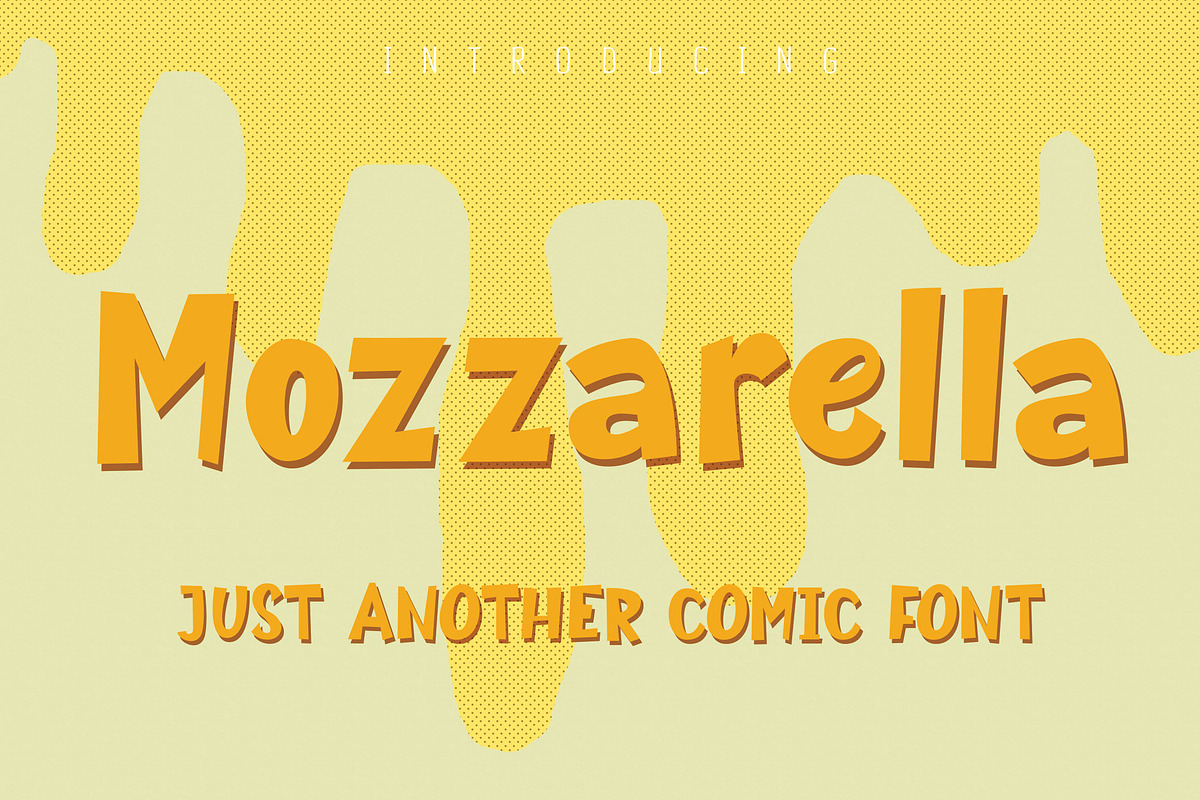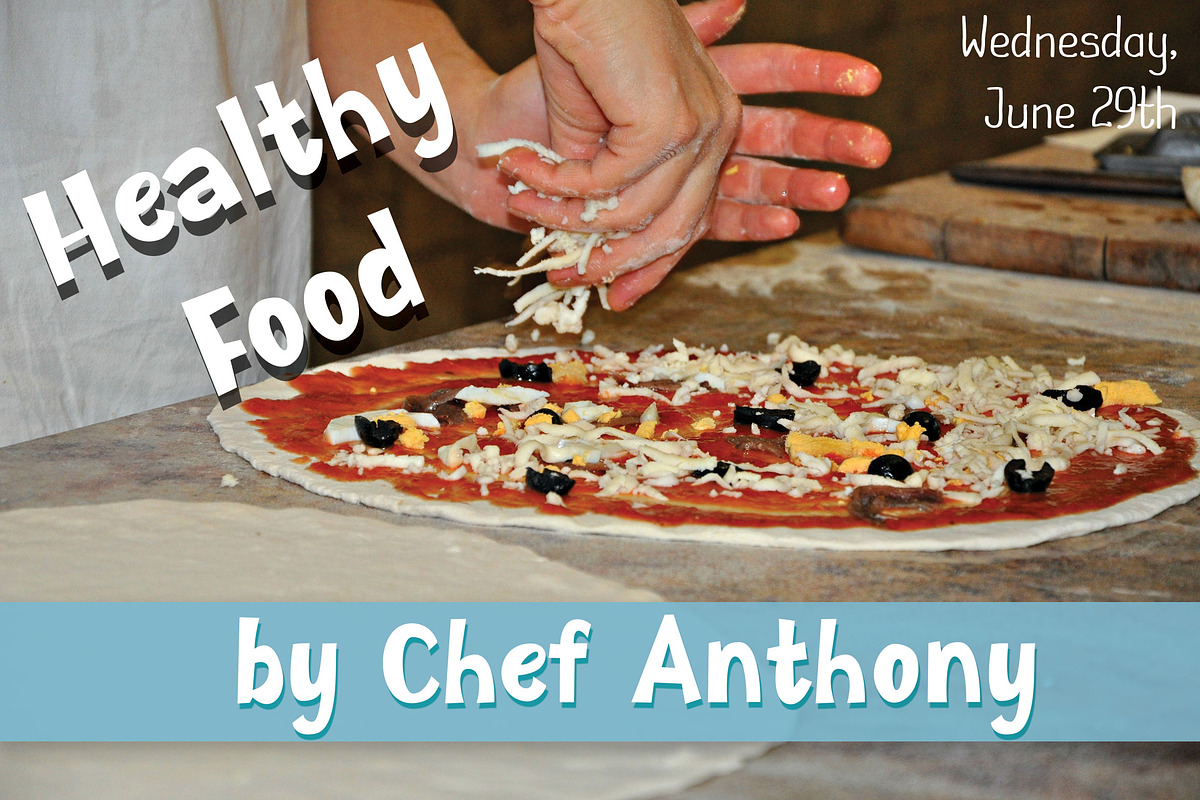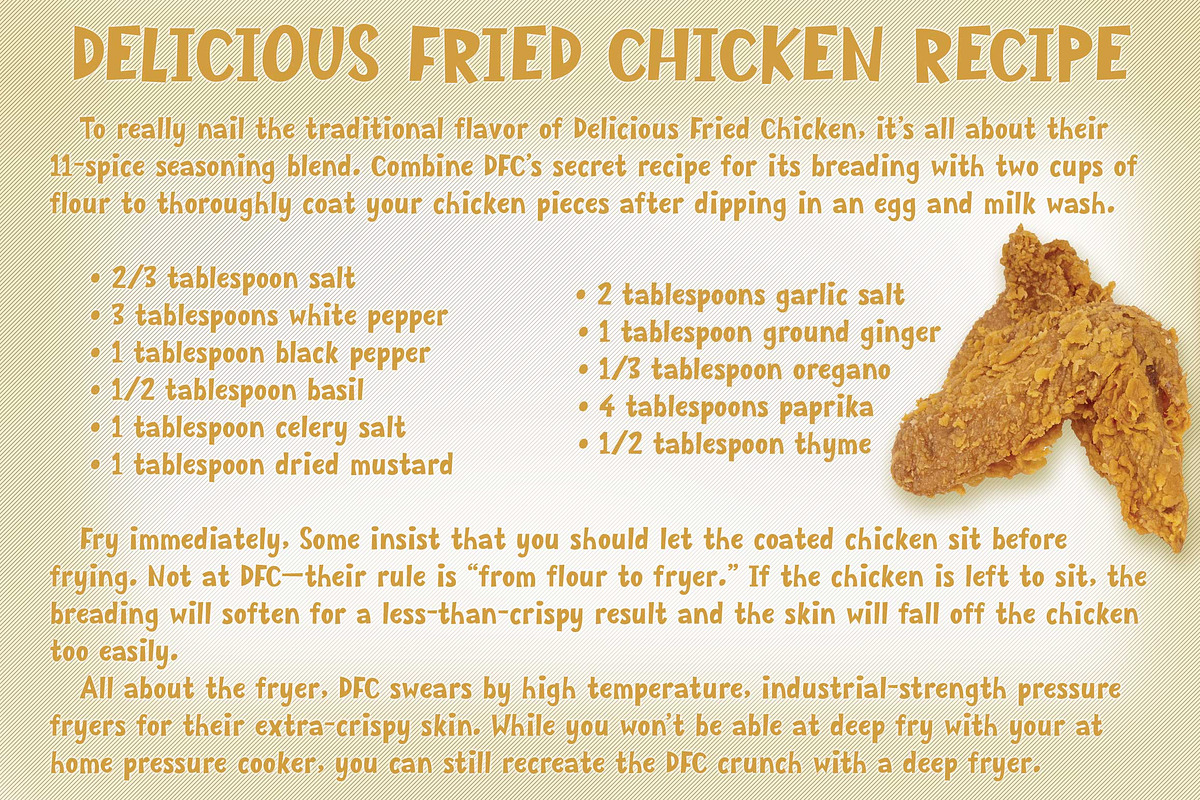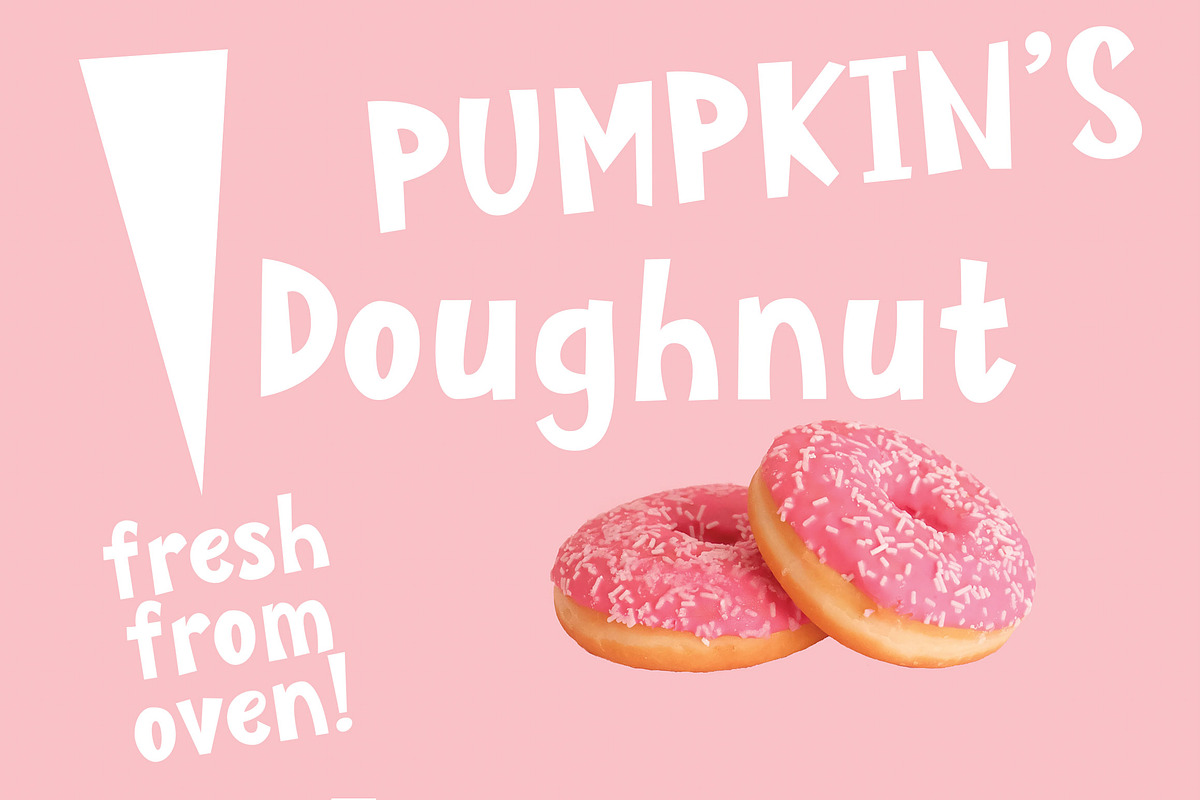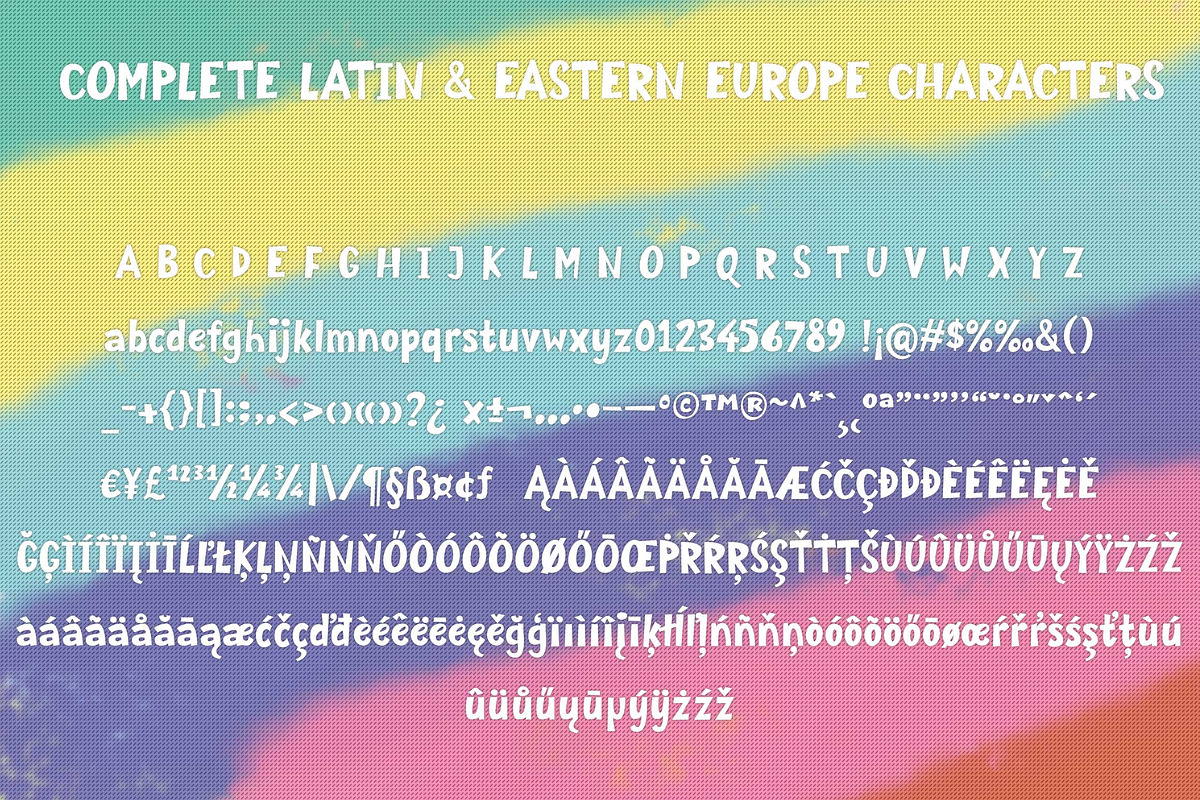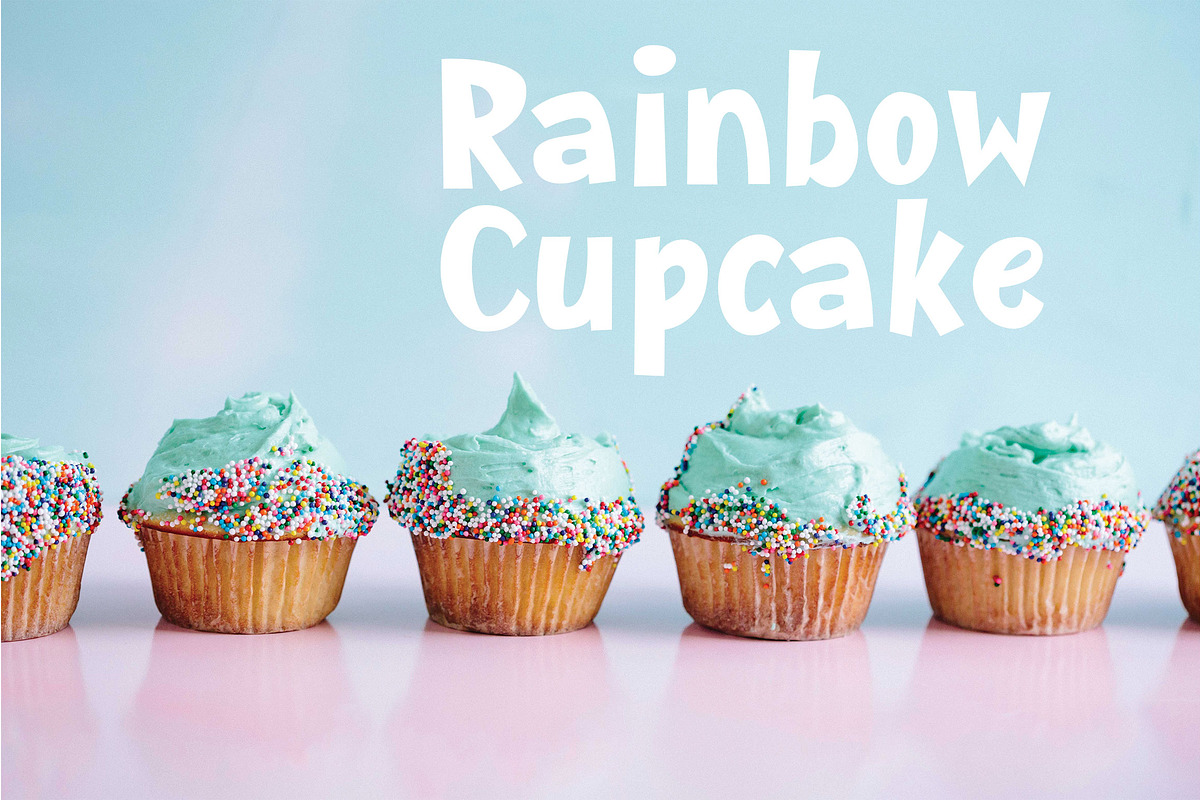
Mozzarella |Comic Display Font
Introducing a new cute bold comic font. All node was cleaned in fairly natural shape. This font will nice for logo, title, subtitle,T-shirt, Mug, flyer, book, magazine, etc.
Have 335 glyphs, supported to all Latin and Eastern Europe characters.
Alternate characters for each uppercase characters.